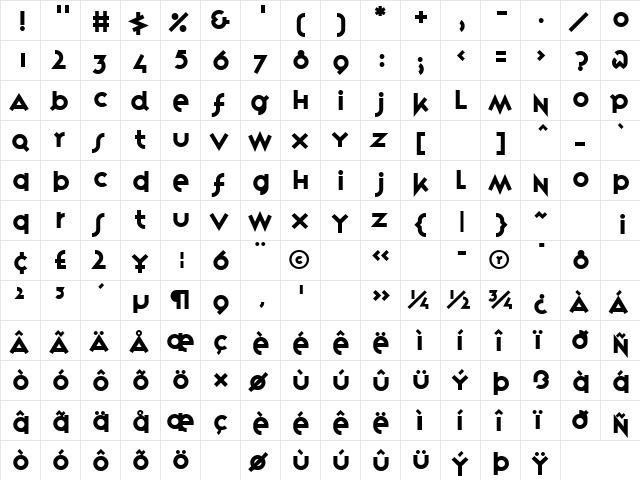
VariexRegular Regular
| Foundry | Emigre Inc. |
| Designer | Zuzana Licko and Rudy VanderLans |
| Year | 1988 |
Design Context for VariexRegular Typeface
VariexRegular takes a measured approach to typography — its balanced proportions and neutral character make it a reliable workhorse for both digital and print work.